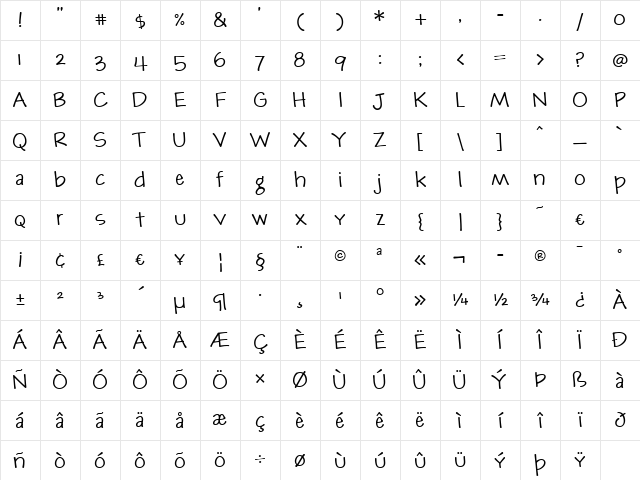
FM Rustling Branches Moon BT Roman
FM Rustling Branches Moon BT Family
FM Rustling Branches Moon BT Roman
Design Context for FM Rustling Branches Moon BT
FM Rustling Branches Moon BT is a composed and adaptable typeface that performs quietly and consistently across a wide range of design contexts.